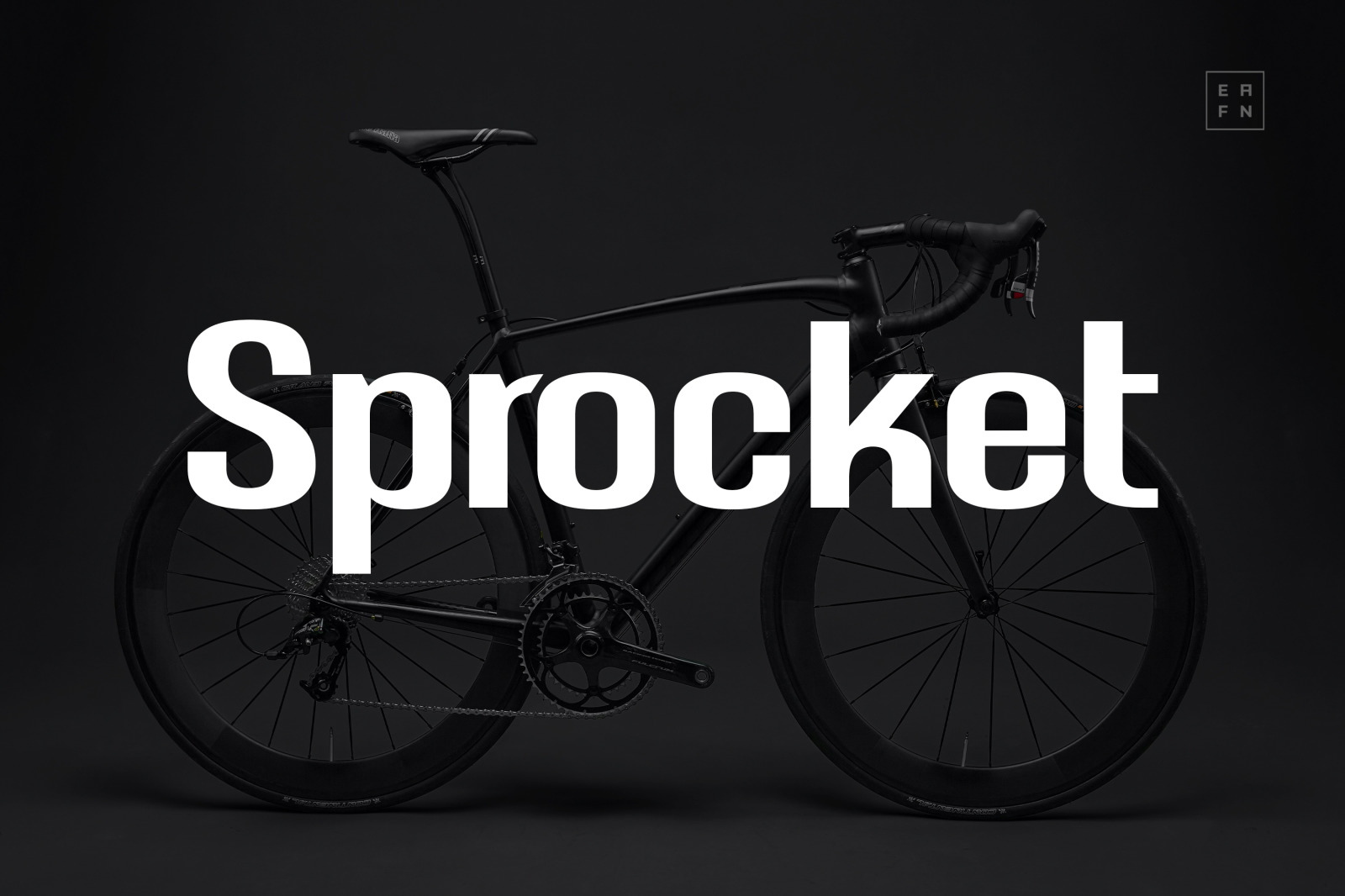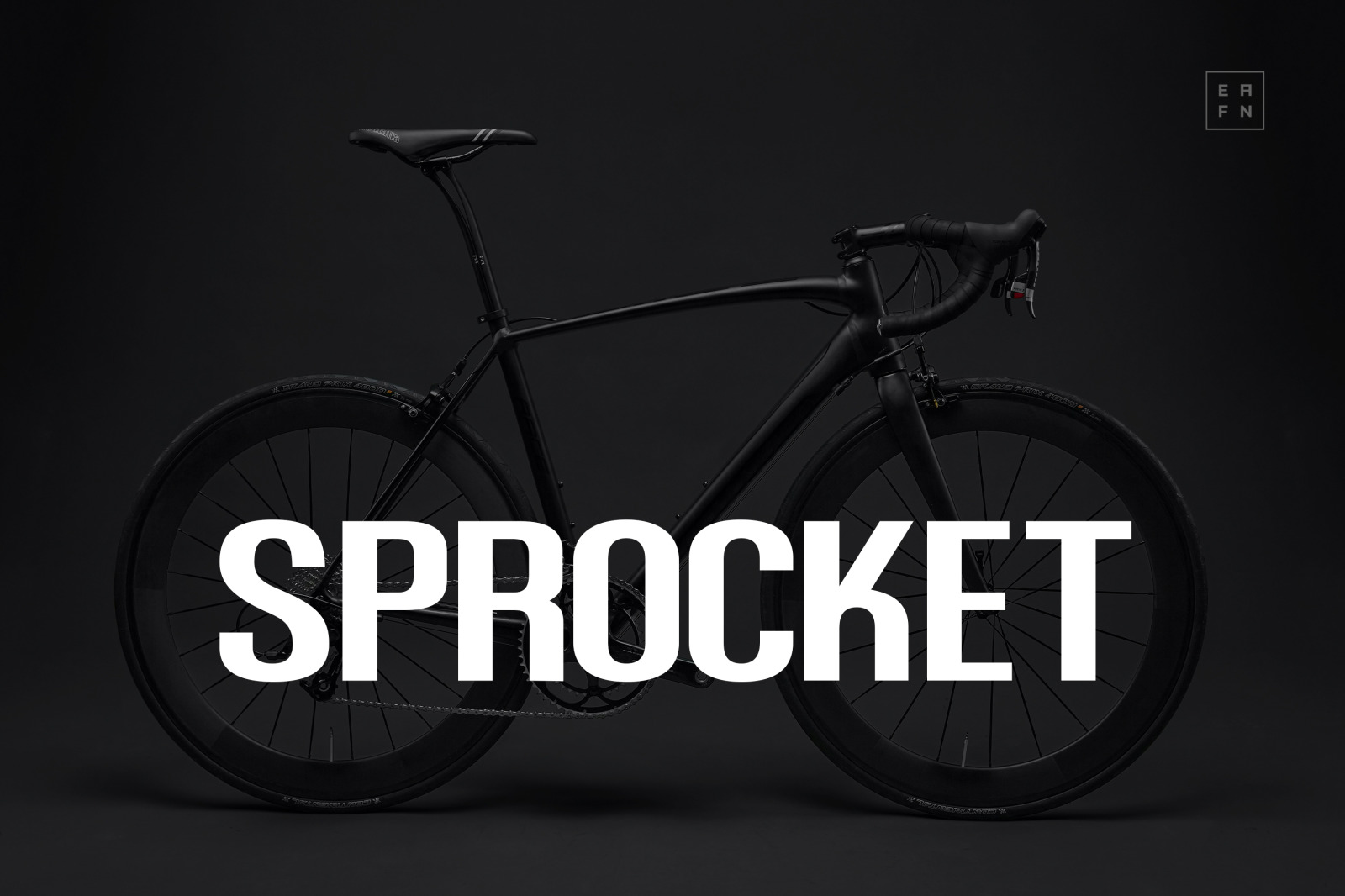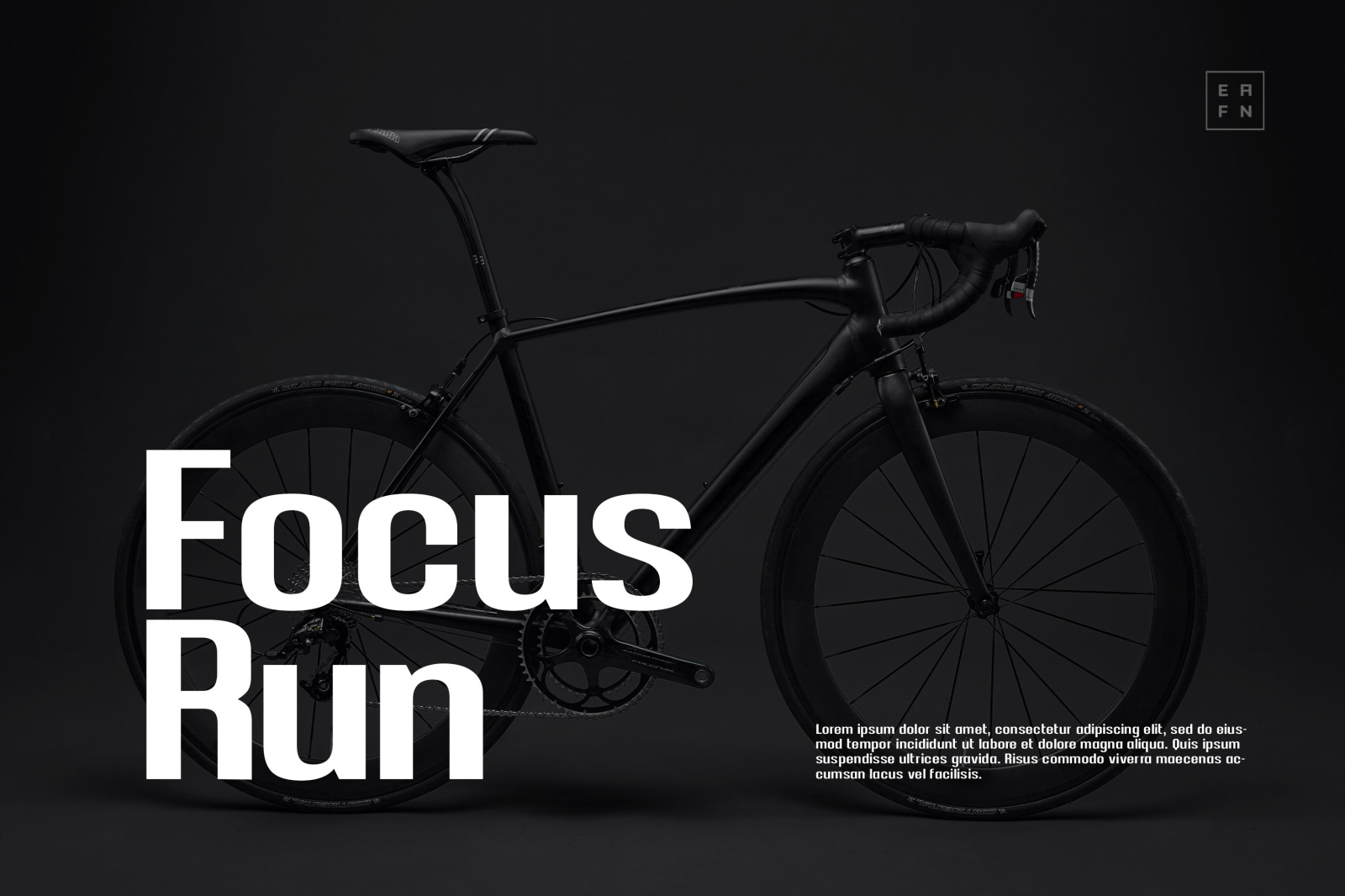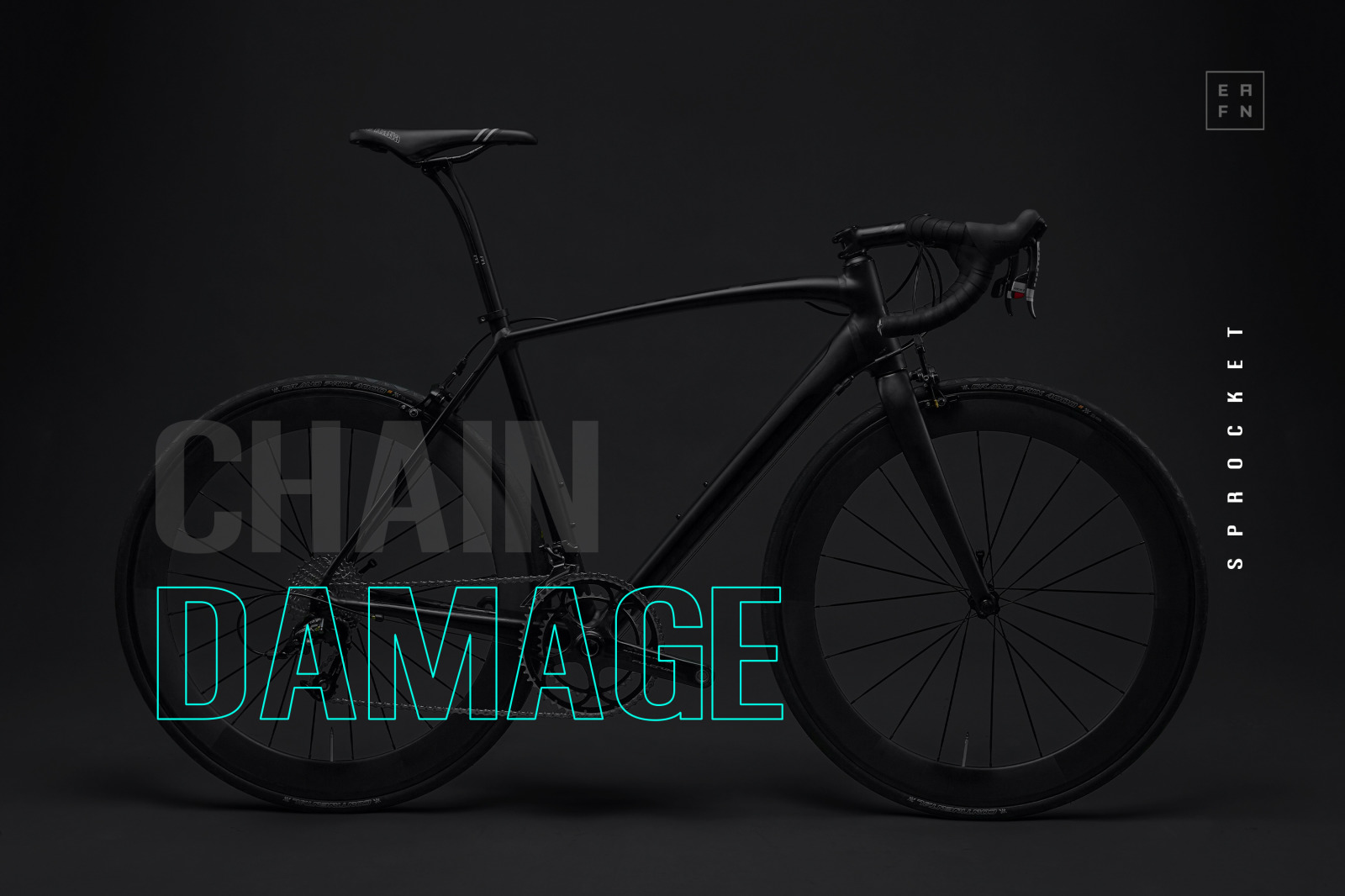
Sprocket Font
Sprocket is a cool, neat and bold display font. Whether you’re using it for crafting, digital designing, presentations or greeting cards making, it’s perfect!
If you're looking for a stylish, iconic font, the best sports fonts are the ones that can be used in a variety of contexts. This strong, bold font is also great for sports flyers, t-shirt designs, advertisements, and sports branding, racing posters, automobile t-shirts, children's cards, among other things.
This font is an excellent choice for strengthening your design projects. The font can be used in a variety of styles, including posters, book covers, packaging, sports branding, and more.